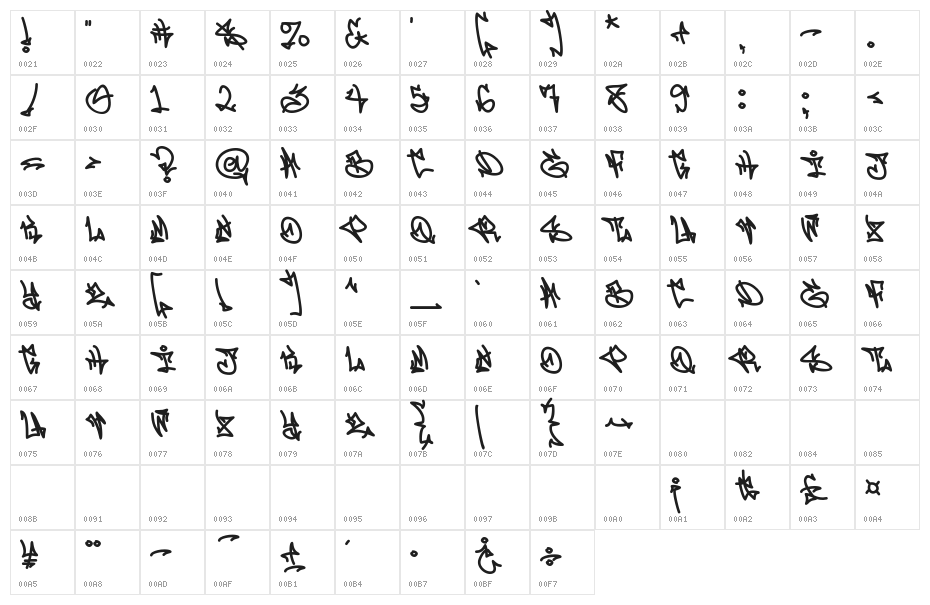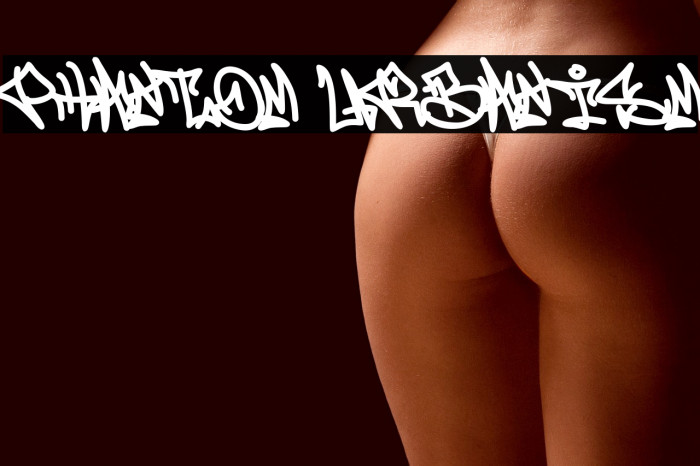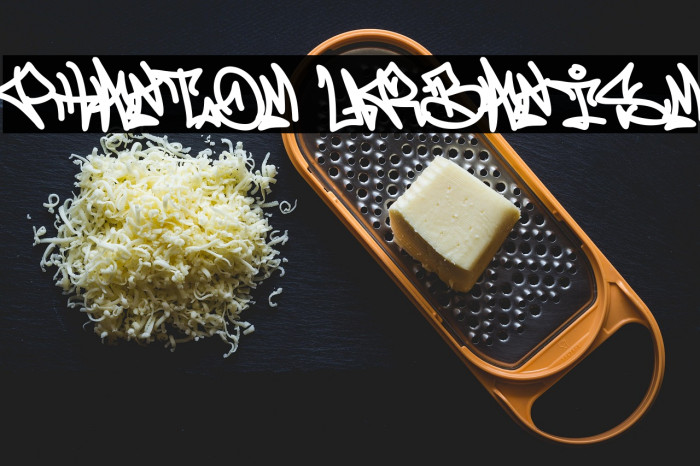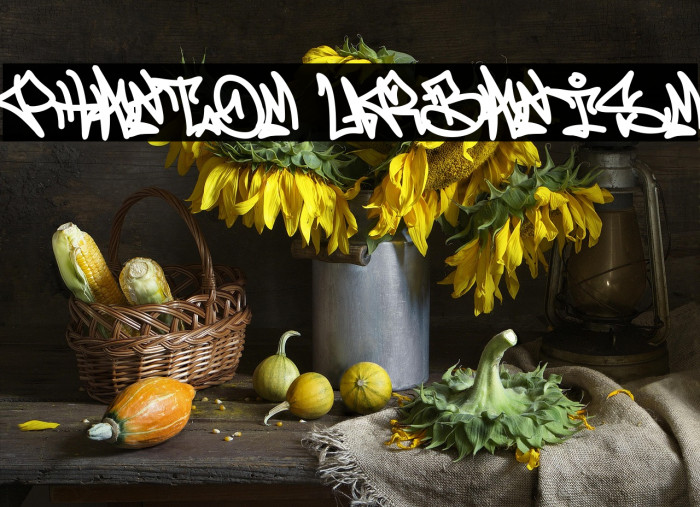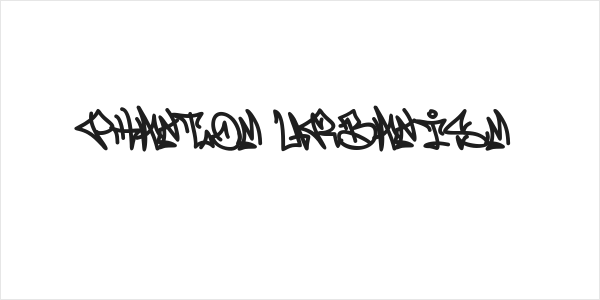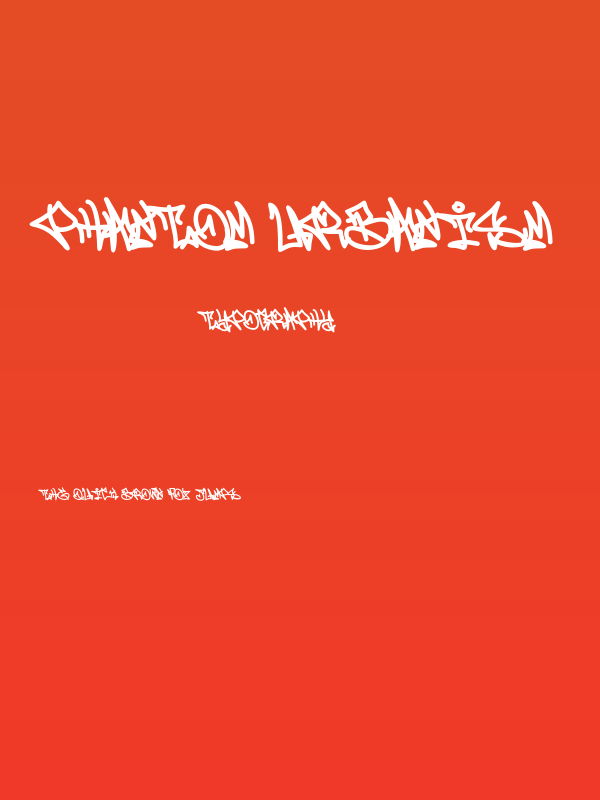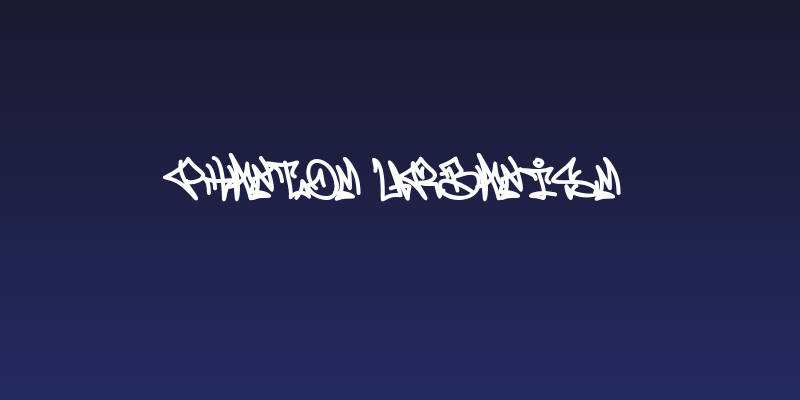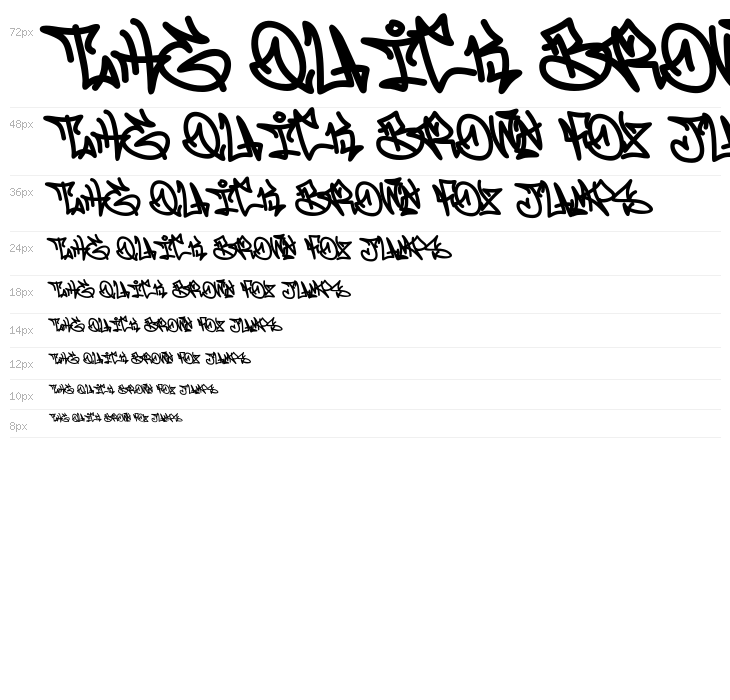
Phantom Urbanism Font
Phantom Urbanism Description
This font exudes an urban, graffiti-inspired aesthetic, characterized by its bold, expressive strokes and dynamic forms. Each character is crafted with a sense of movement and energy, reminiscent of street art. The letters are interconnected with fluid lines, creating a cohesive and artistic appearance. The font's style is highly decorative, making it ideal for projects that require a strong visual impact. Its unique design is perfect for capturing attention and conveying a sense of modern urban culture.
| Overall Style | Urban, Graffiti, Modern |
| Use Case | Logos, Posters, Album Covers |
| Proposed Projects | Ideal for street art designs, urban-themed posters, music album covers, and edgy branding projects. |